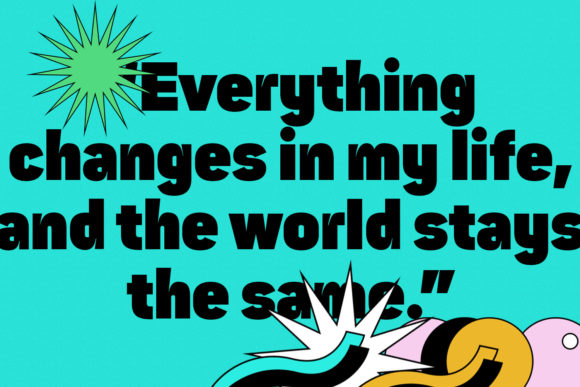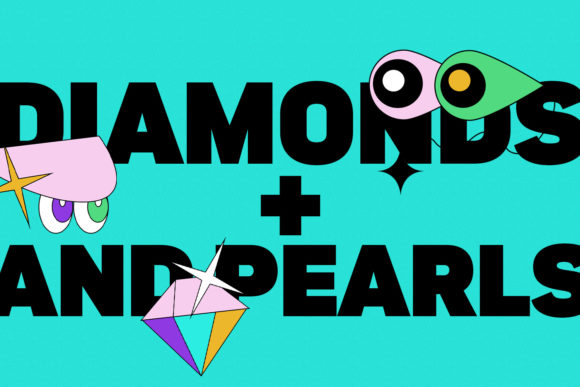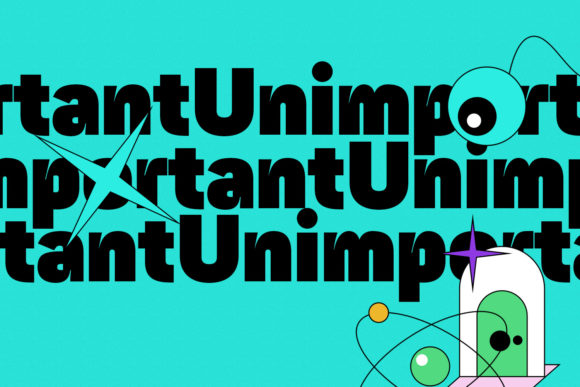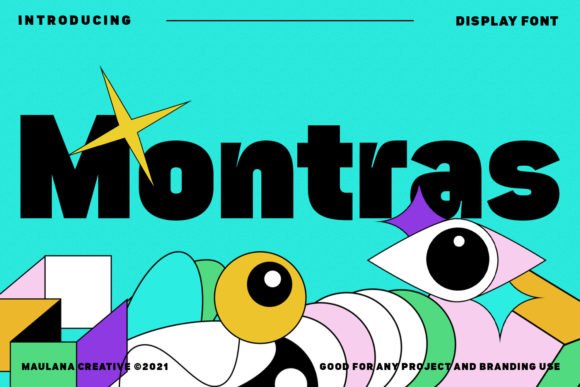
Introduction to Montras Font
Montras is a modern sans serif font with strong and bold strokes, fun characters, and unique ligatures.
This font is great for logo design, social media, movie titles, book titles, short text, even long text Make stunning work with Montras font.
Key Features of Montras Font
Why Choose Montras Font?
Montras Font offers exceptional quality and versatility, making it a valuable addition to your design toolkit. Whether you’re creating for personal projects or commercial use, Montras Font delivers professional results.